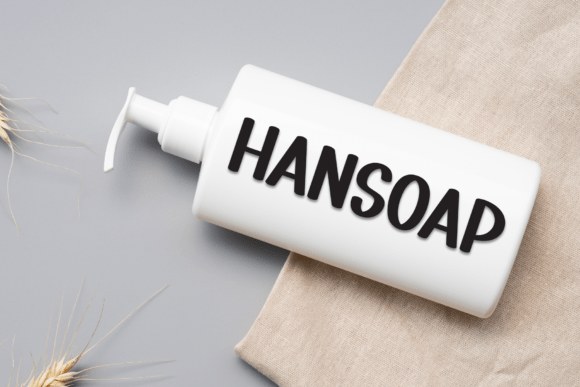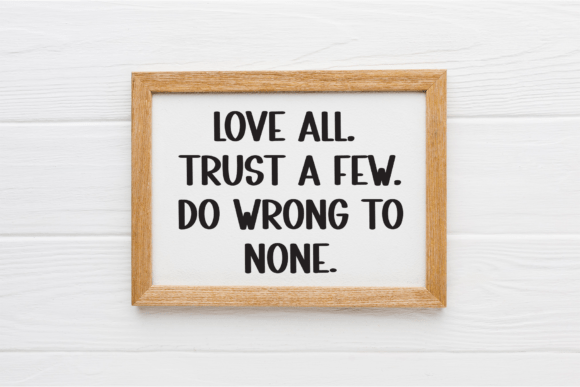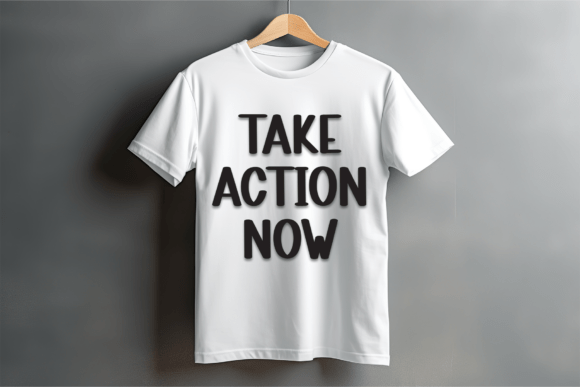
Magic Flower Font
About the Magic Flower Font
From logos to headlines, the Magic Flower Font is the perfect choice for making a lasting impression. This handwritten display font brings charm and character to every letter. With its playful strokes and casual flow, it captures the essence of authentic handwriting—perfect for quotes, greeting cards, branding, and anything that needs a personal, heartfelt touch. Whether you’re crafting for kids or designing a modern logo, this font adds warmth and whimsy to your work.
Magic Flower Font excels in headlines, short-form content, and branding applications where a friendly, approachable aesthetic is desired. Its whimsical nature makes it ideal for children’s products, invitations, and social media graphics. However, its casual style is unsuitable for body text or UI elements requiring high legibility. Avoid using it in long paragraphs or situations demanding precise alignment.
For optimal visual harmony, pair Magic Flower Font with clean sans-serif fonts like Open Sans or Lato for a balanced contrast. A classic serif like Playfair Display can add a touch of sophistication, while a simple geometric sans-serif like Montserrat offers a modern counterpoint. Avoid pairing it with other highly decorative or script fonts to prevent visual clutter.
The font’s overall personality is best described as playful and charming, conveying warmth and approachability. It is well-suited for brands targeting a younger demographic or those emphasizing handcrafted, artisanal qualities.
Magic Flower Font Usage Examples
Magic Flower Font Example